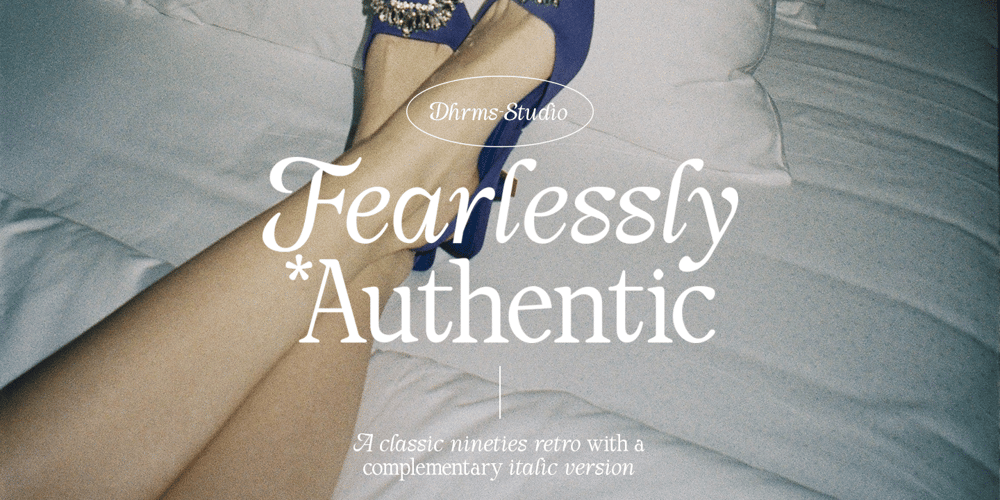
Fearlessly Authentic Font Family was designed by Ahmad Jamaludin and published by Ahmad Jamaludin. Fearlessly Authentic contains 2 styles and family package options. Say hello to the new classic nineties retro font, Fearlessly Authentic!The trend is to make thin serif fonts that made the 80s and 90s style, so we wanted to make them too but with a different touch. Make it slightly rounded for a retro look and make your design look great!Fearlessly Authentic – A classic nineties retro with a complementary italic version. In the italic family, we make it different from the regular and make a shape with a unique uppercase so it looks more classic, retro but a little modernWe’ve also been loving combining the regular and italic, especially for logos (see the “Symphatize logo, image #3)Included : Regular and Italic Letters, numbers, symbols, and punctuation Use in many programs even in Canva Multilingual Support Language Support: Danish, English, Estonian, Filipino, Finnish, French, Friulian, Galician, German, Gusii, Indonesian, Irish, Italian, Luxembourgish, Norwegian Bokmål, Norwegian Nynorsk, Nyankole, Oromo, Portuguese, Romansh, Rombo, Spanish, Swedish, Swiss-German, Uzbek (Latin)Come and say hello over on Instagram! https://www.instagram.com/dharmas.studio/Dharmas Studio